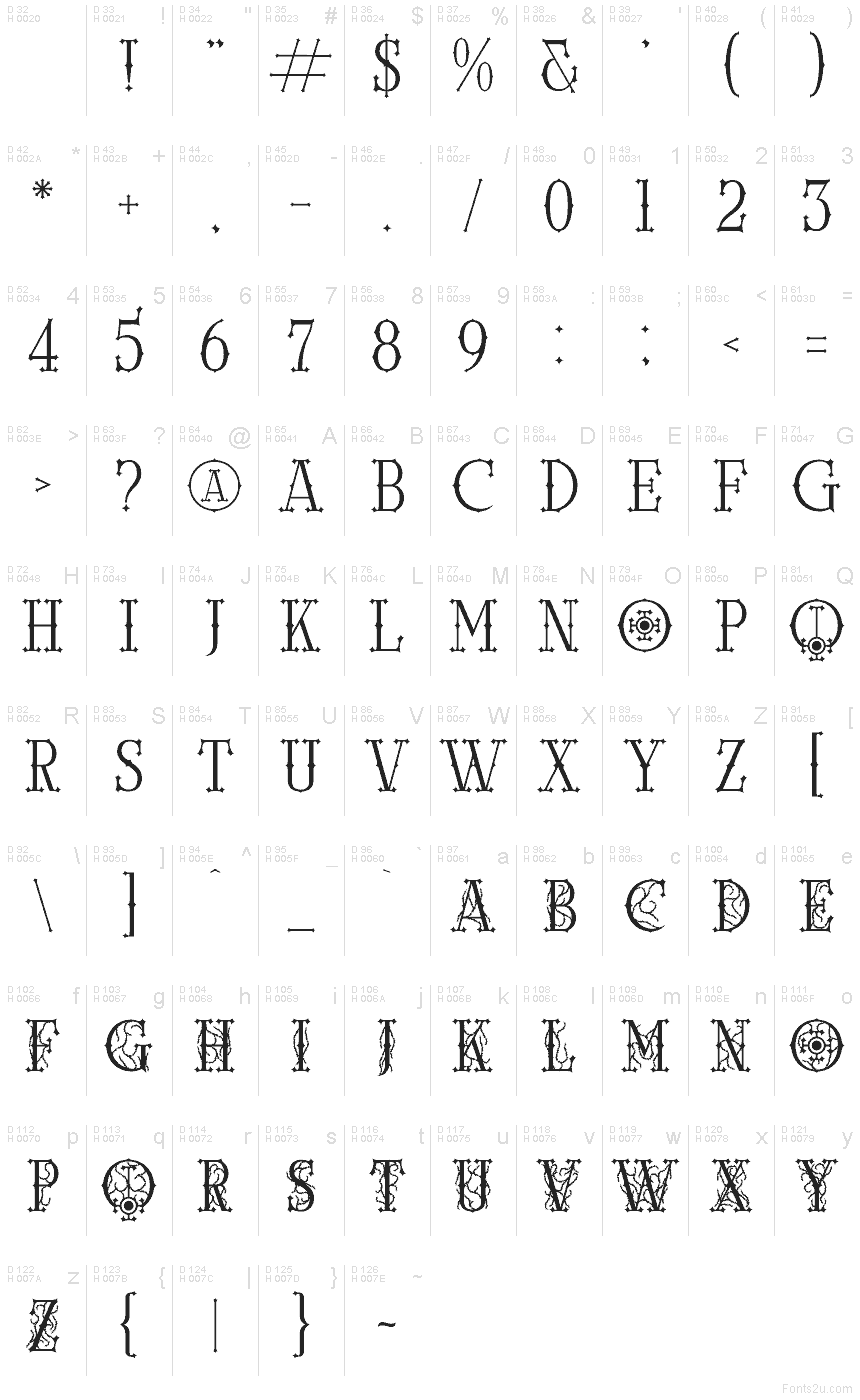
Noctune
Noctune font by Storytype Studio is a display font that is both Victorian-inspired and highly decorative in nature with many carefully elaborate elements. It sports ornamental details and gothic influences throughout all characters in a beautiful rhythm. Condensed, the style comes off as past, historical, but with a dramatic flair that makes the typeface more intriguing.